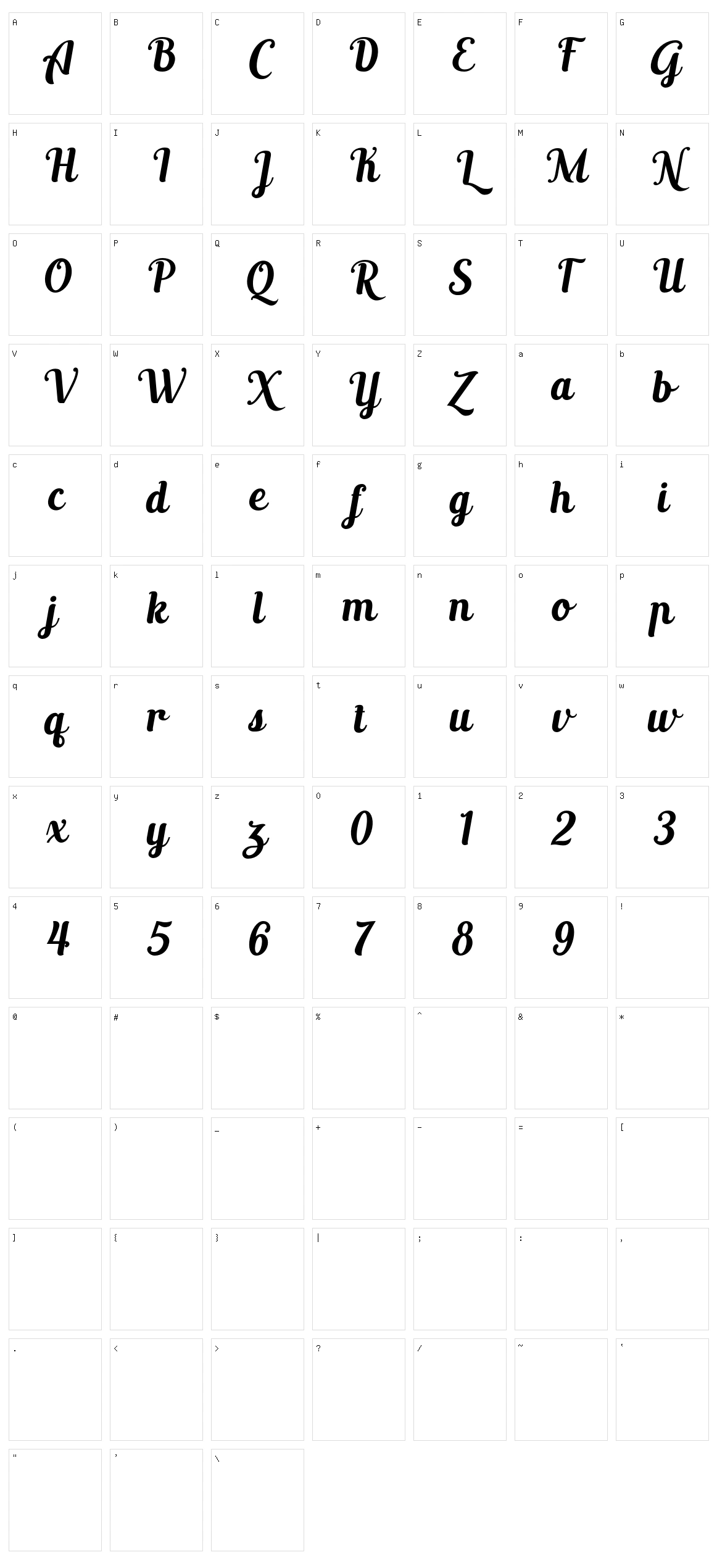
Yihaiii... Altoys Typeface make your font collection to be more varied, because Altoys have a special characters glyphs, gorgeous and curvaceous makes this font is suitable for a your brand name. Very clearly visible from a distance.
Character uppercase and lowercase
Numerals & Punctuations (OpenType Standard)
Accents (Multilingual characters)
swash, stylistic alternates, contextual alternates, ligature, discretionary ligature, ornament, ss01 - ss02